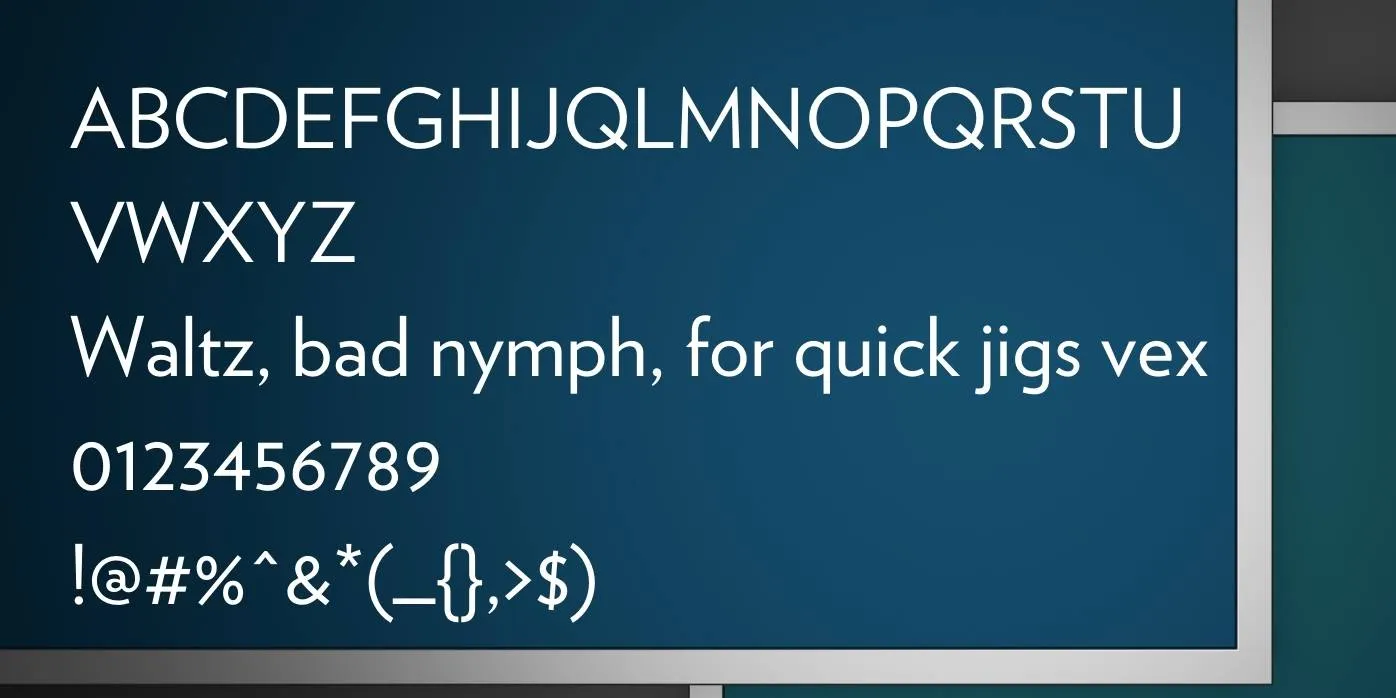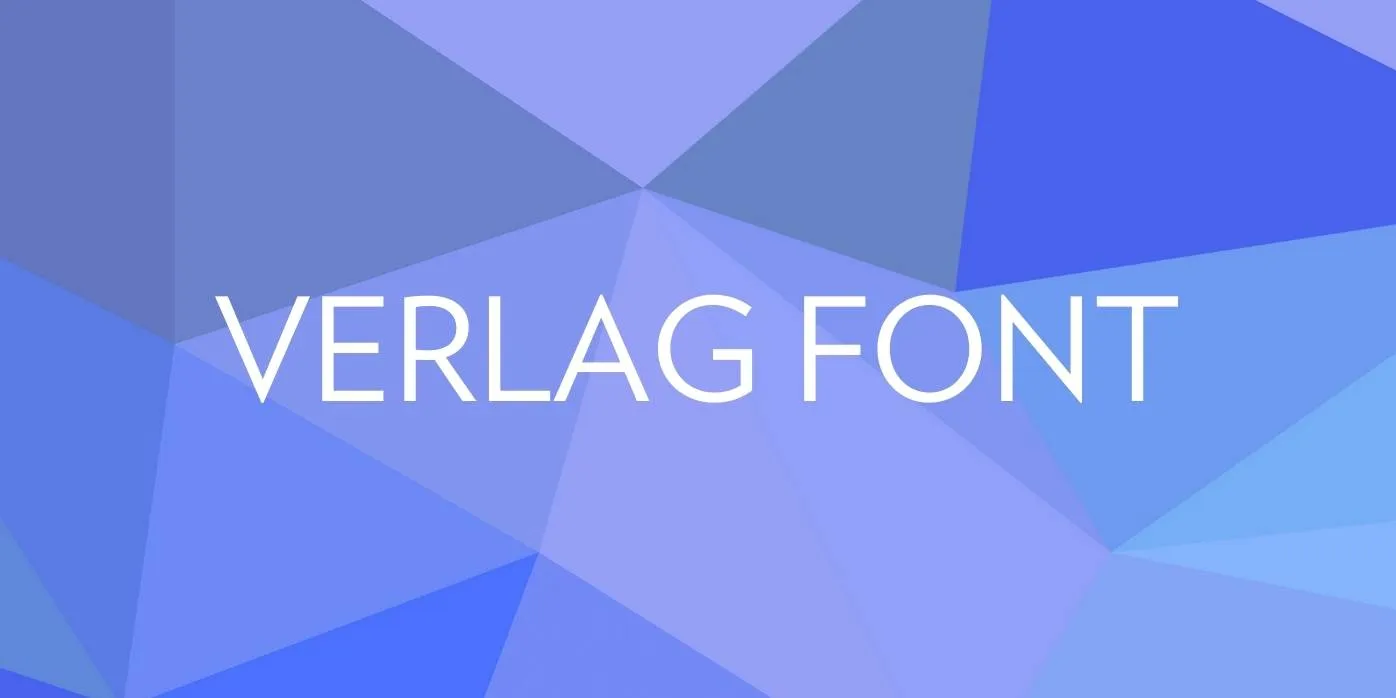
Verlag Font
Today, we are here introducing a most stylish and classy font named Verlag Font. It was a clean Sans-Serif. This modern typeface was designed by Jonathan Hoefler and Tobias Frere-Jones. This typeface is available in 11 different styles.
This font family comes in 5 weights. Mostly this typeface is used for advertisements, logos designs, publishing purposes, and many more. This font family also used its bold weight. Its pairing function makes it popular that keep in adobe font and google.
This font family has outstanding and extraordinary features that is why this typeface is frequently used by designers. All organizations use this typeface for their functions. This stunning typeface provides a classic look to all of your projects and designs. This typeface is free for personal purposes if you want to enjoy its features you can download it from websites.
This font provides the best touch to your designs. This typeface provides the best results for your functions and projects. This font is famous due to its amazing features. This typeface will help to fulfill your client’s requirements.
This typeface is available in both OTF and TTF  formate. This typeface has a clean texture. This font family is mostly used all over the world. This font is mainly used for the pairing of banners font.
This is the perfect typeface for all designing projects.